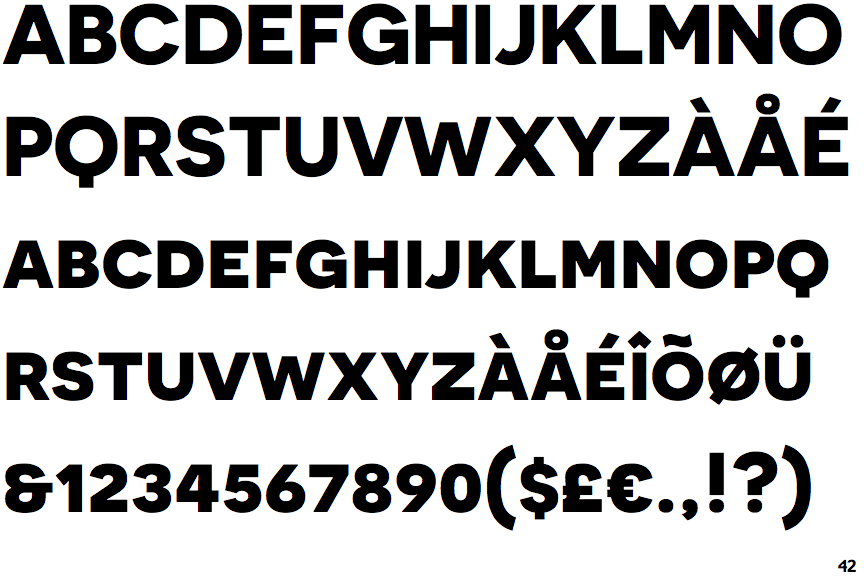
Novecento Wide Font Free Download
Novecento Wide Font Free Download. It looks rational and geometric. It is highly unlikely that you'll be able to find novecento sans for free.
This Font Face Is Designed To Be Used Mostly For Headlines, Visual Identities Or Short Sentences, Both In.